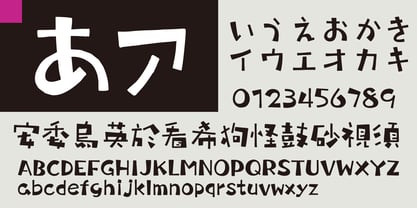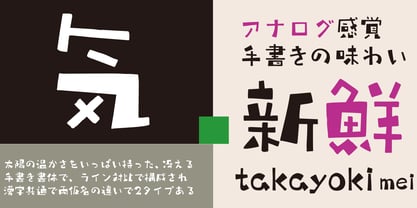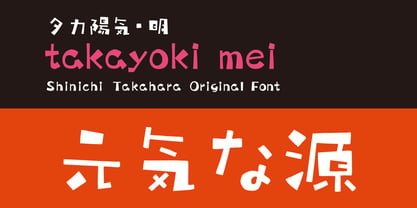
Takayoki-Mei
The Takayoki-Mei Font Family was designed by and published by Taka Design Production. Takayoki-Mei contains 1 styles. More about this family
This is a handwritten typeface with the warmth of the sun. It is composed of contrasting thin and thick lines, and triangular elements are effectively placed here and there. There are two types, “Mei” and “You”, which differ in both kana. Mei" is a precise type...